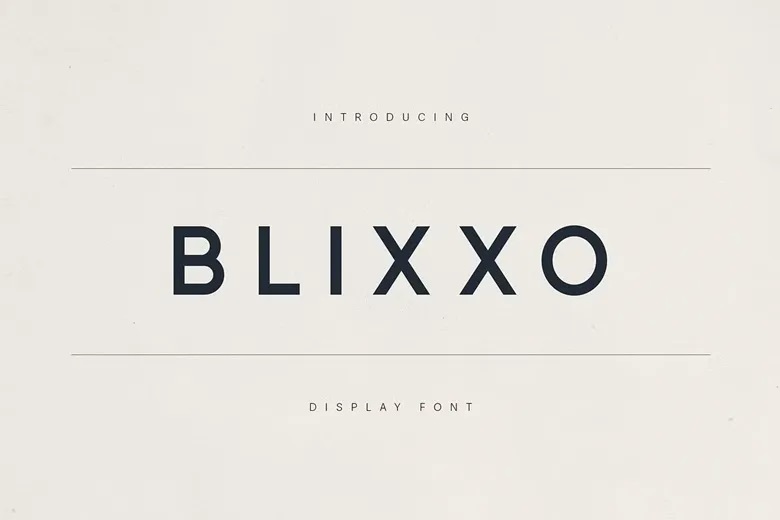
Blixxo Font
Blixxo is a contemporary, minimalist display sans serif font designed for brands that aim for clarity, elegance, and sophistication. With its clean lines, balanced proportions, and strong geometric foundation, Blixxo elevates editorial designs, lifestyle branding, signage, and digital interfaces to a new level of sophistication.
Blixxo Sans Serif Font